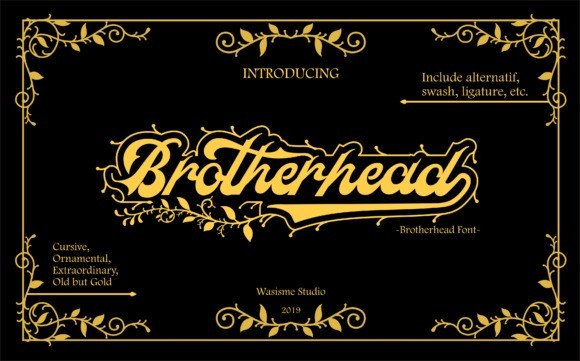
Brotherhead Script Font
This Brotherhead font includes many different alternatives for each lowercase letter. Make these fonts good in your Font Library. It’s fun to use because every word can be changed according to your wishes.
Brotherhead modern script fonts, This font is perfectly made to be applied especially in logos, and various other formal forms such as invitations, labels, logos, magazines, books, greeting / wedding cards, packaging, fashion, make up, stationery, novels, labels or any type of advertising purpose.